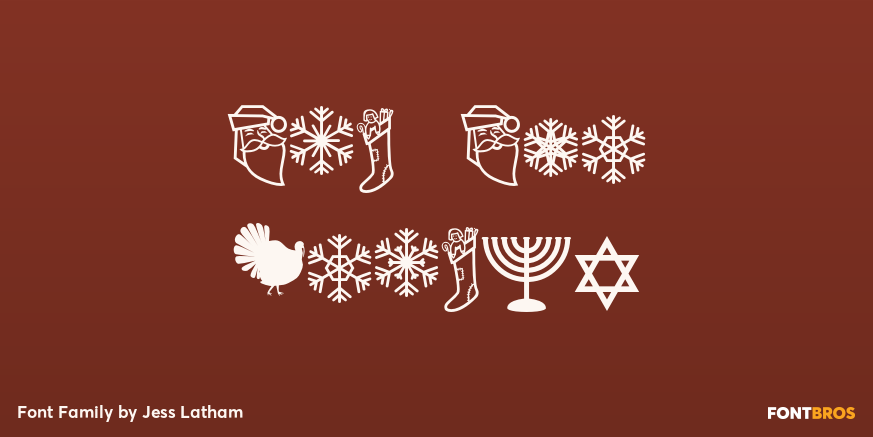
HomeFont BrosDingbatTis The Season Dingbat Tis The Season FacebookXPinterestWhatsApp 1 of 1 About Tis The Season is the ultimate winter holiday dingbat! It\’s got everything: Autumn Leaves, Snow Flakes, Thanksgiving, Christmas, Hanukah, Kwanza, Gift Boxes, Santas, New Years, etc.  DOWNLOAD ON FONT BROSThis font is sold and delivered by Font Bros. Font Canyon may earn a commission if you buy through this link. People also explored Little Snowman Font Strike Font Dalgonis Font Florescent Font Briella Font Lovely Heart Font Rayasa Font Brownland Font Light Blue Bella Canvas 3001 Tee Mockup 415 0 TagsTis The Season Font Previous articleHello LovelyNext articleGrunge Formal LEAVE A REPLY Cancel reply Comment: Please enter your comment! Name:* Please enter your name here Email:* You have entered an incorrect email address! Please enter your email address here Website: Save my name, email, and website in this browser for the next time I comment. Personal Use Free Eloquence Personal Use Free Read more about this font Shawaki Personal Use Free Read more about this font Pretender Personal Use Free Read more about this font Maxwell Personal Use Free Read more about this font BLOG Free Fonts Risk: Why Free Fonts Can Be Dangerous for Designers Free Fonts Risk: Why Free Fonts Can Be Dangerous for Designers Using free fonts is a common practice in web and graphic design. However, the... The 10 Best Handwriting Fonts to Add Personality to Your Designs Best Fonts for T-Shirt Design – Top 2025 Picks Top 7 Google Fonts Alternatives for Faster and Privacy-Friendly Web Design (2025)